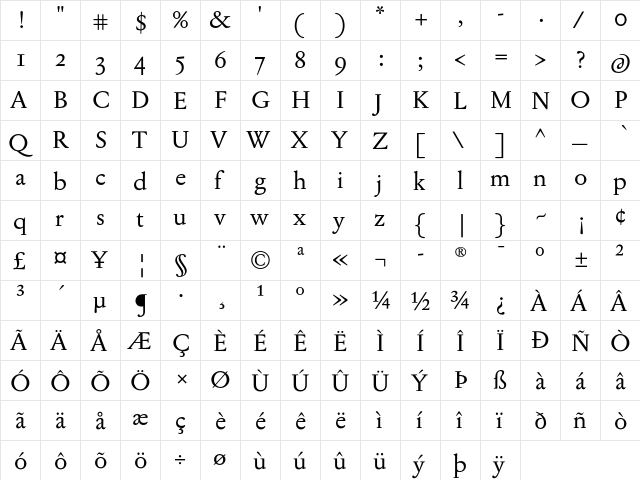
Jannon T Moderne Pro Regular
Design Context for Jannon T Moderne Pro Typeface
Jannon T Moderne Pro offers clean, dependable letterforms without strong stylistic allegiance, making it a practical choice for designers who need flexibility.